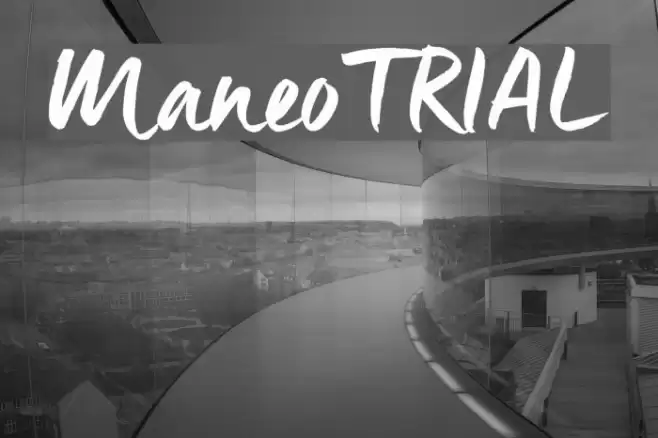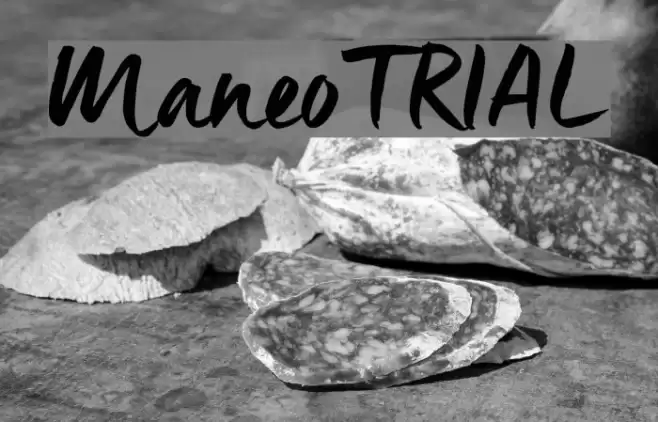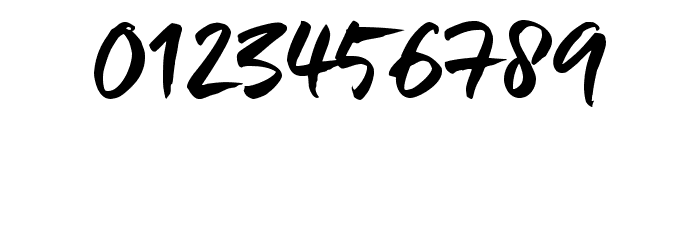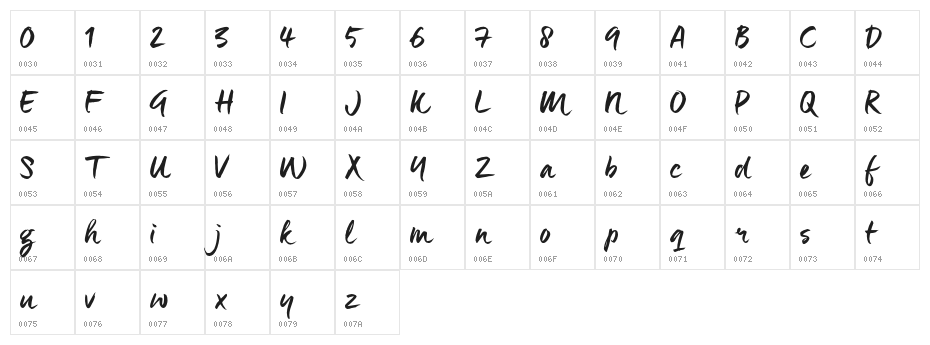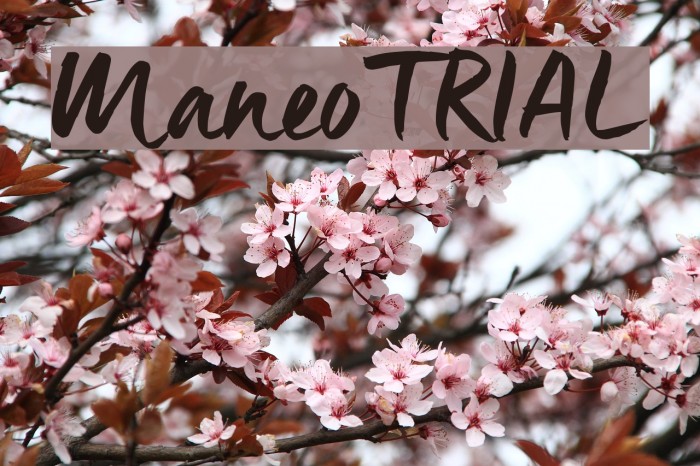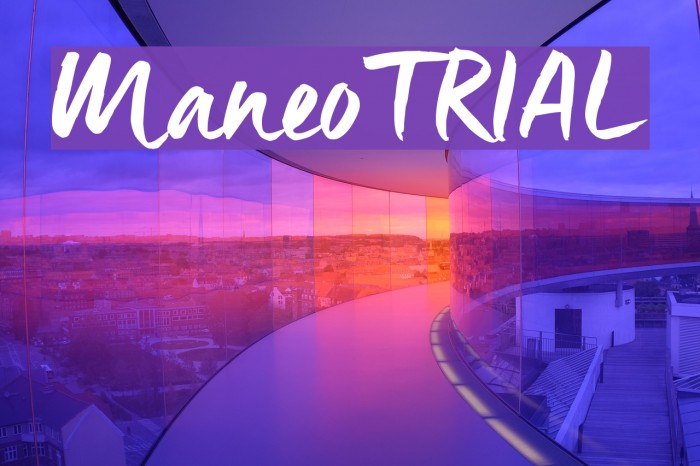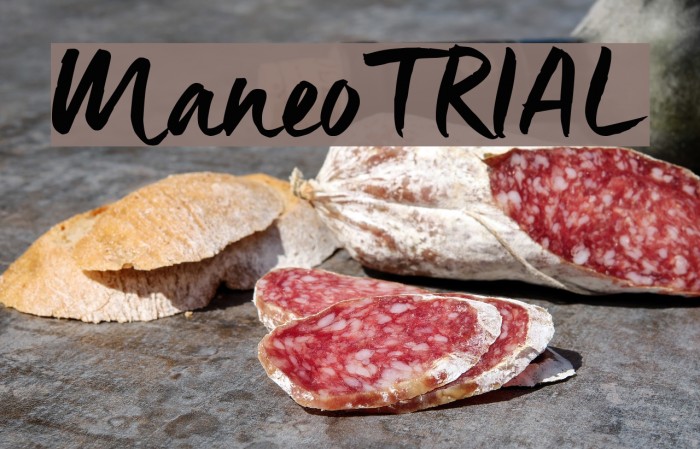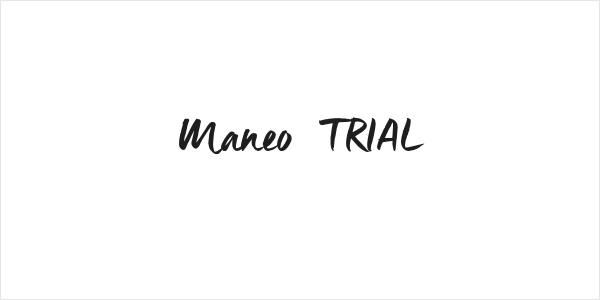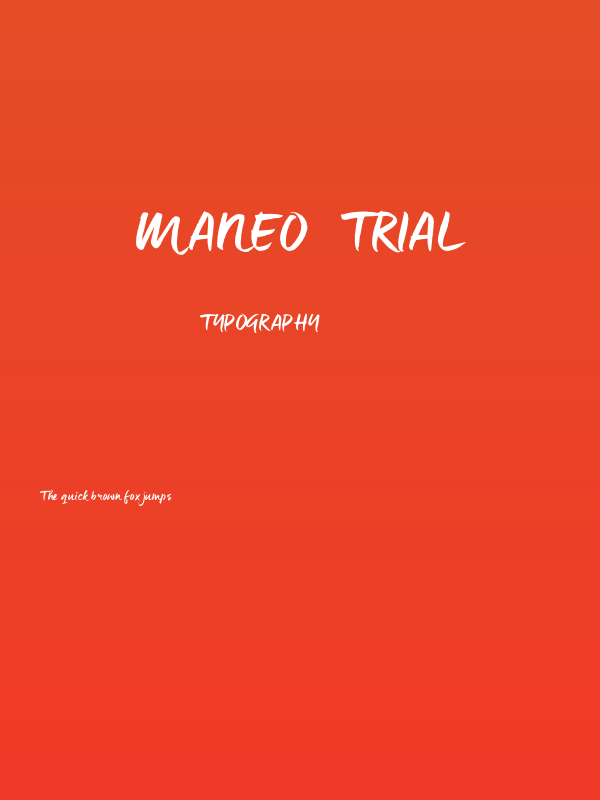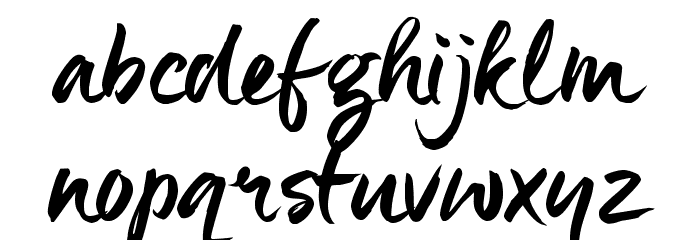
Maneo_TRIAL Font
Maneo_TRIAL Description
This font features a dynamic and expressive handwritten style, characterized by its fluid strokes and natural flow. The letters are slightly slanted, giving a sense of movement and energy. The uppercase and lowercase letters maintain a consistent style, with a playful yet sophisticated appearance. The numbers are bold and clear, matching the overall aesthetic of the font. The special characters are designed with the same attention to detail, ensuring a cohesive look across all glyphs.
A dynamic handwritten font with fluid strokes and a playful yet sophisticated style from Handwritten fonts.
- Proposed Projects: Ideal for creative projects such as invitations, greeting cards, branding, and social media graphics.
- Use Case: Logos, Headlines, Creative projects